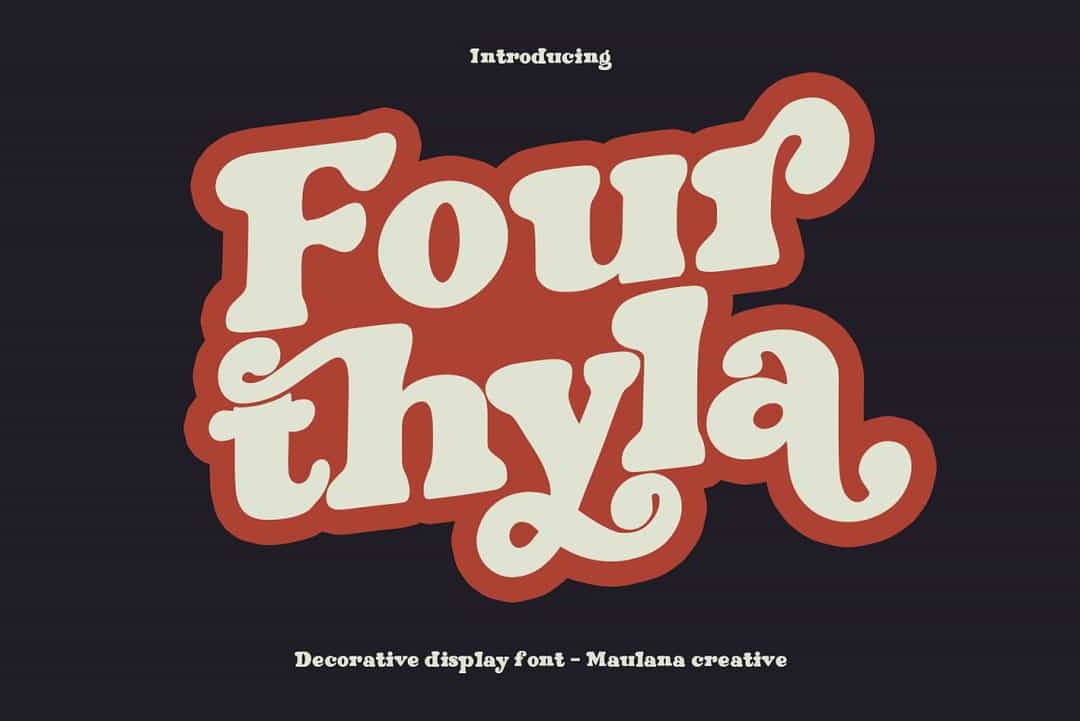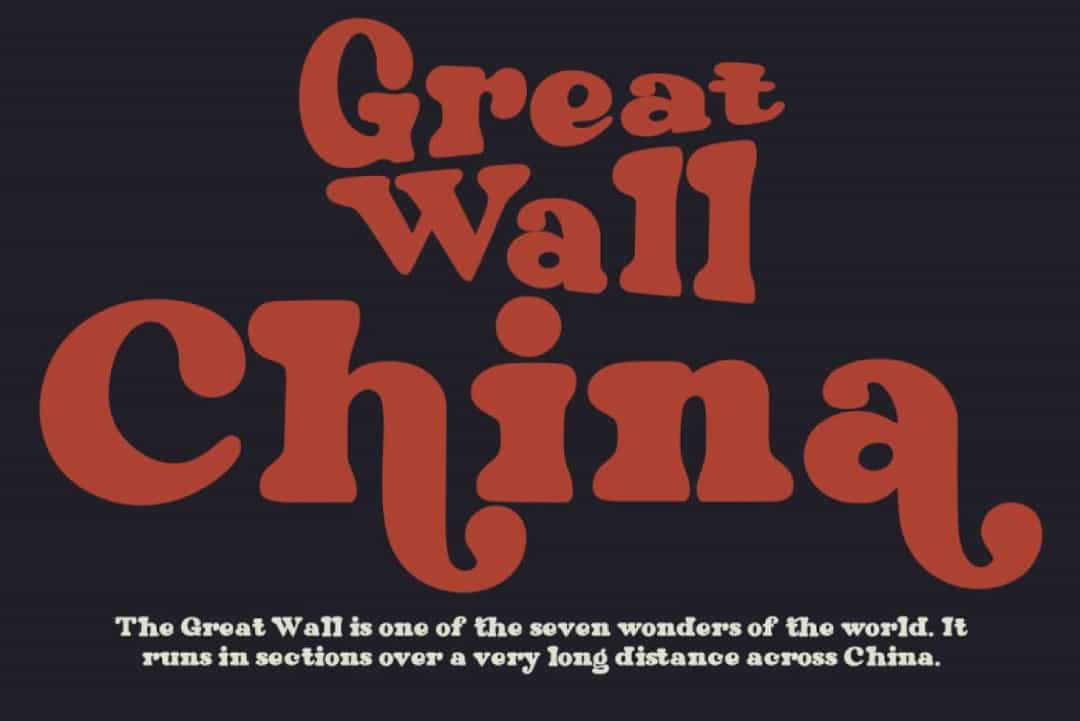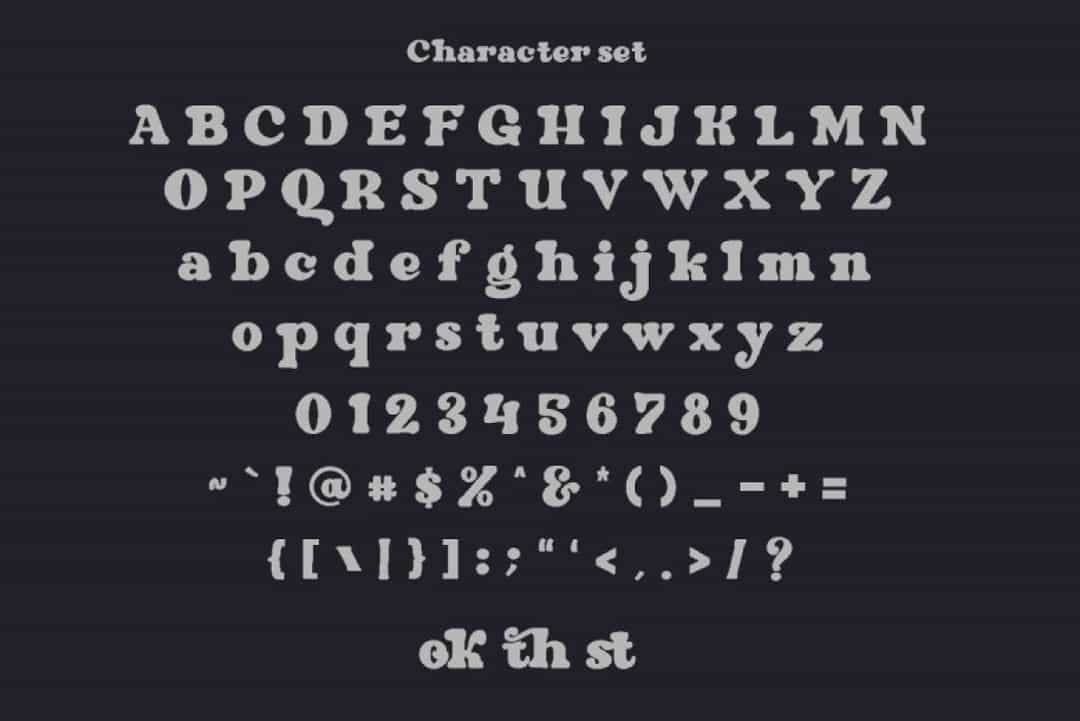
Fourthyla is an elegant handwritten serif display font featuring bold strokes, charming characters and some subtle ligatures and alternates for more artistic works. Additionally, the font supports over 100 languages!